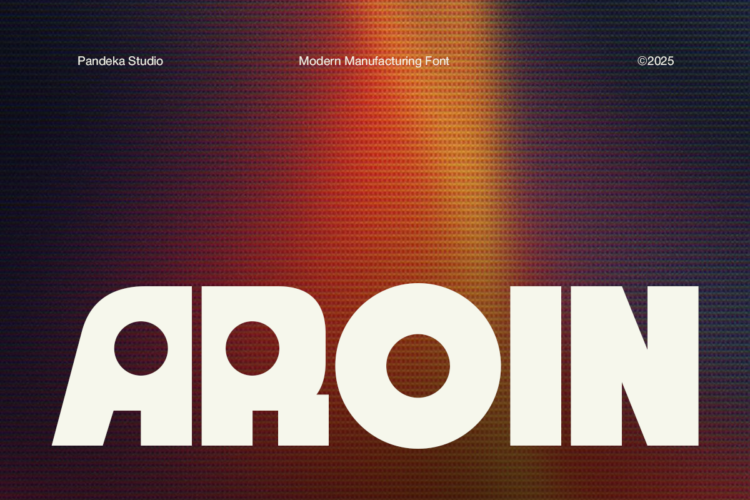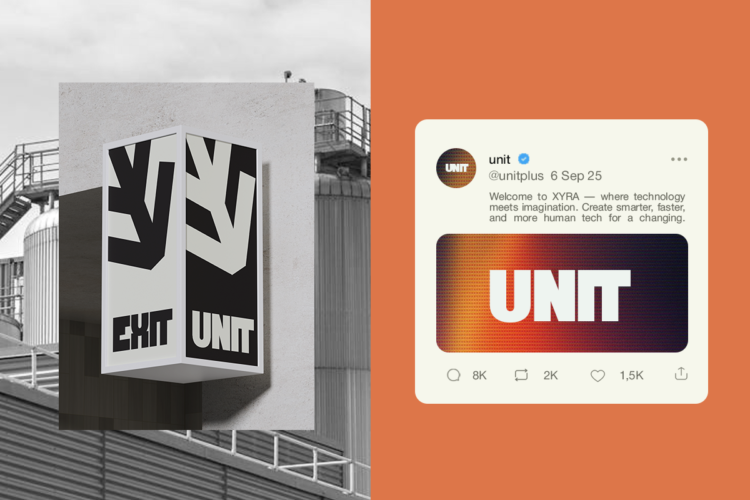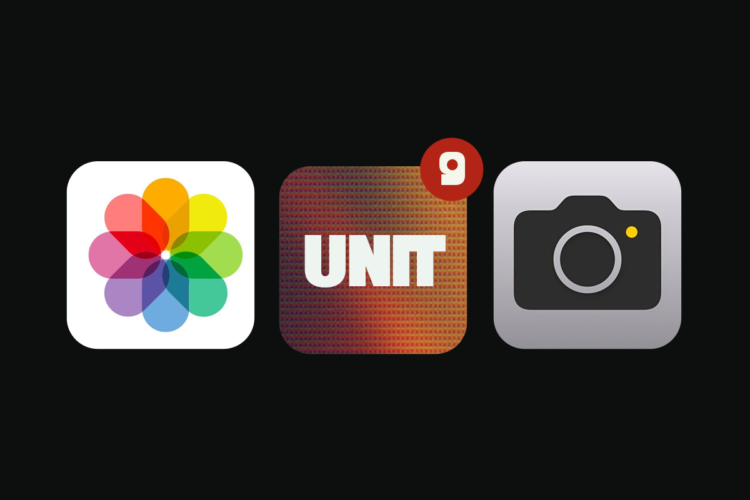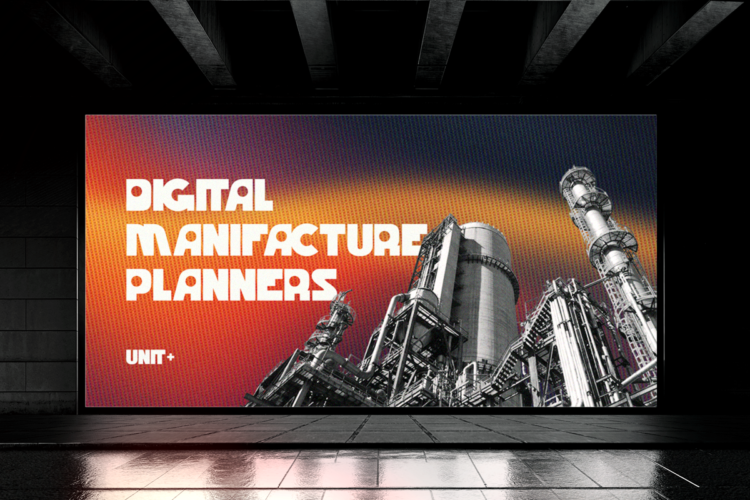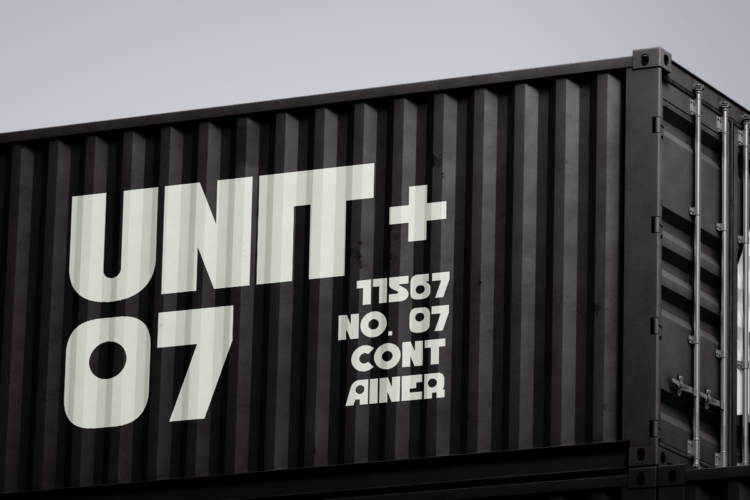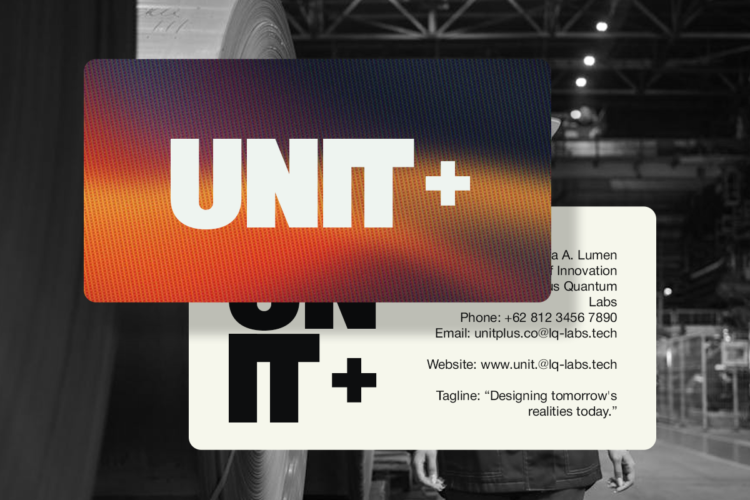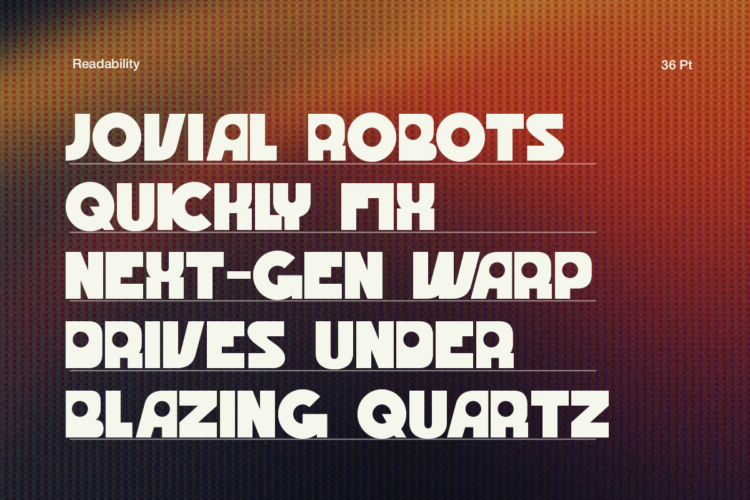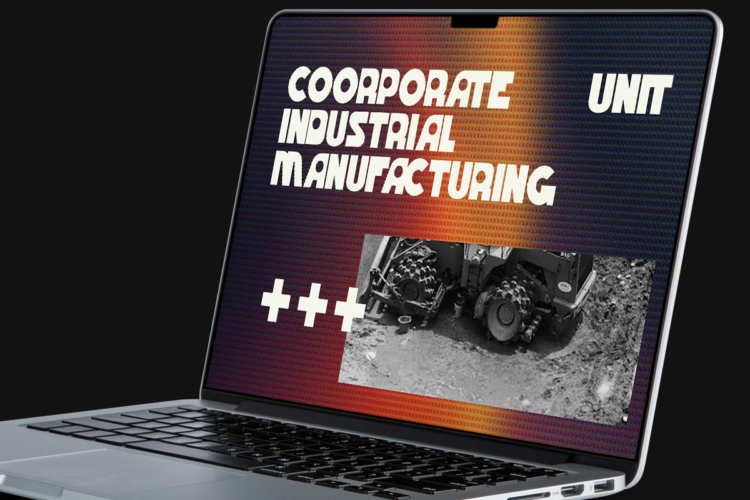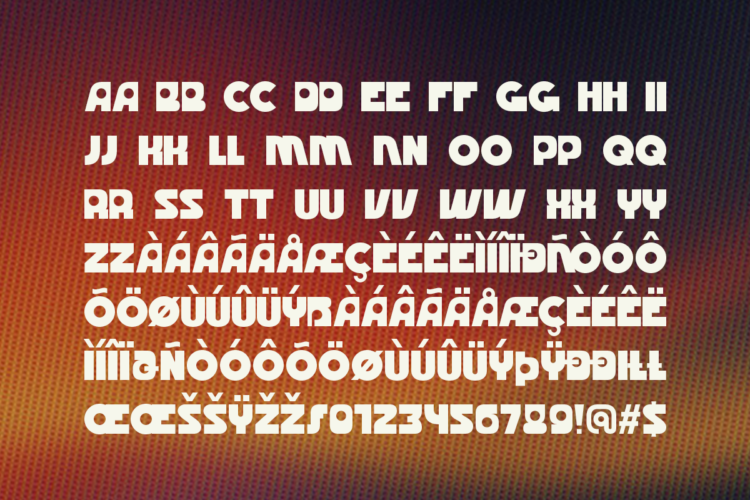
Aroin is a bold, sharp, and futuristic display font inspired by modern manufacturing, industrial systems, and high-tech engineering aesthetics. With its strong geometric structure, clean cuts, and mechanical precision, Aroin delivers a powerful, confident, and forward-thinking visual identity that fits perfectly with robotics, digital factories, automation, and tech-driven brands.
Available in 1 style: Regular, Aroin includes uppercase & lowercase letters, numbers, punctuation, and multilingual support. Its high-impact look makes it ideal for logos, industrial branding, tech posters, digital interfaces, billboard headlines, corporate presentations, motion graphics, product packaging, and futuristic visual identities.